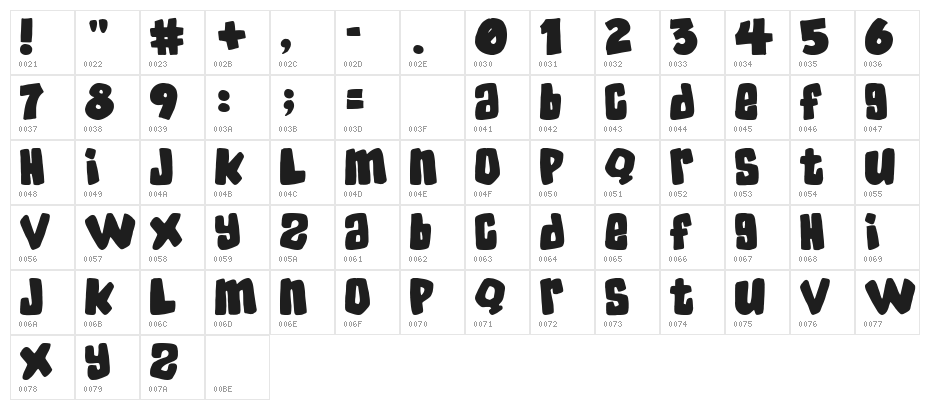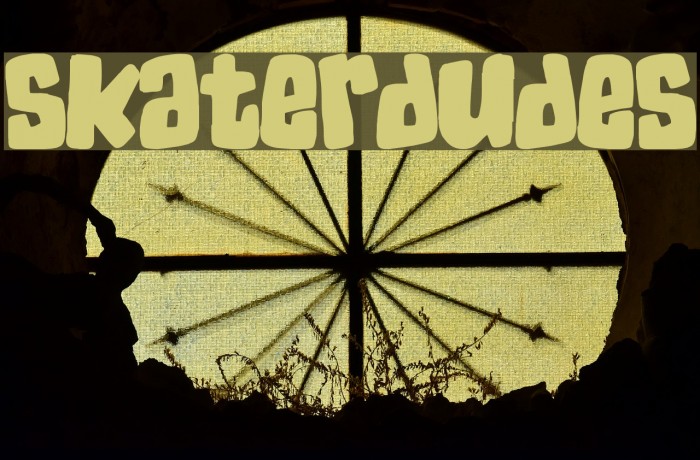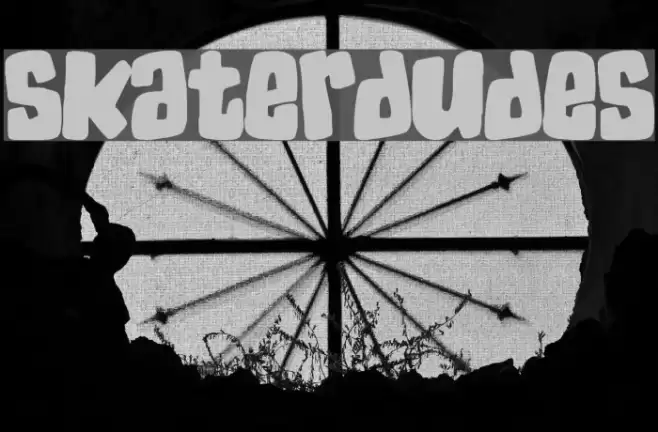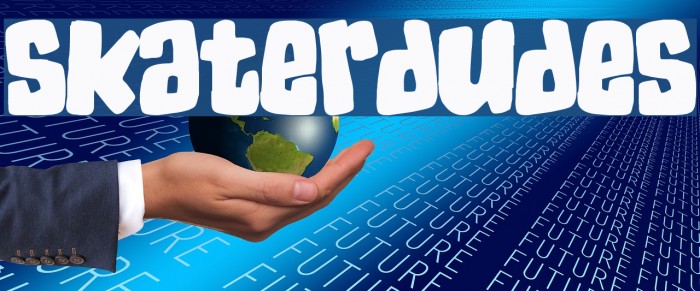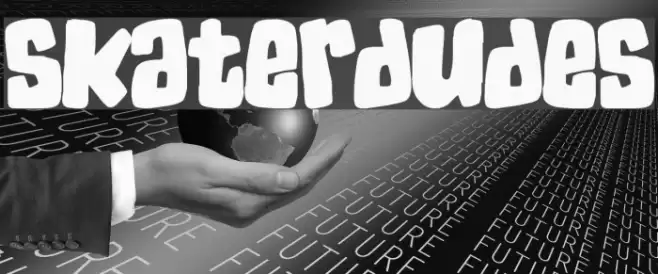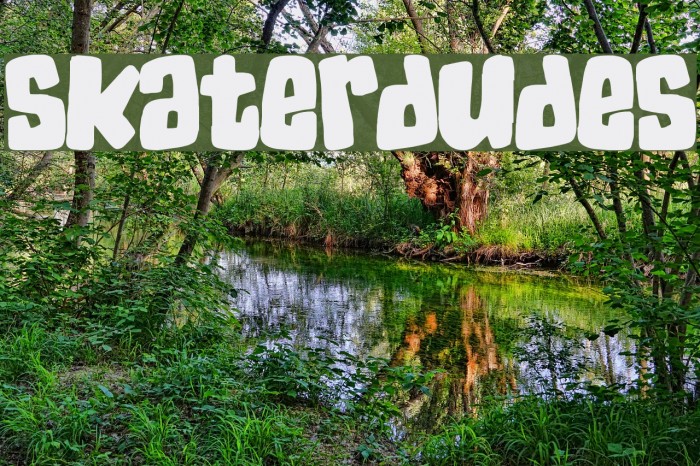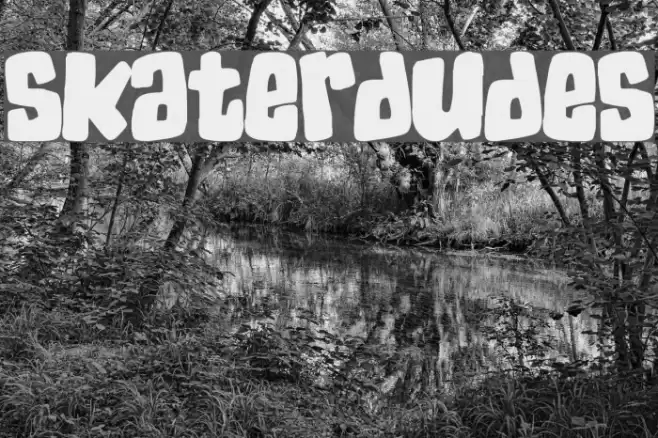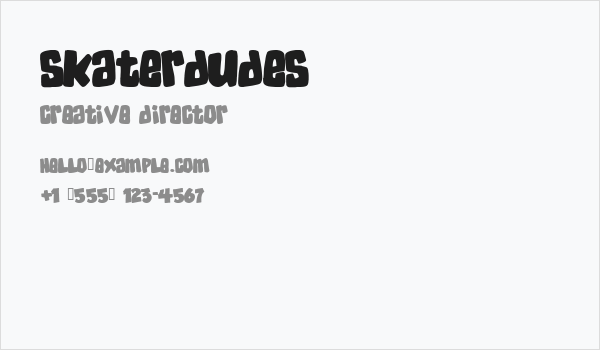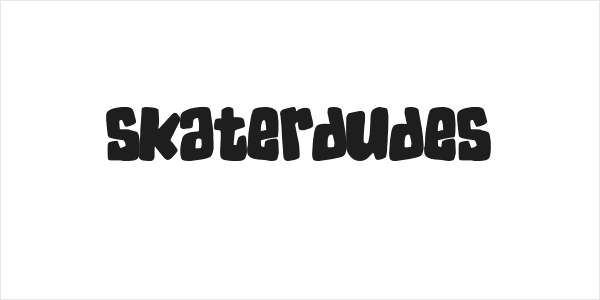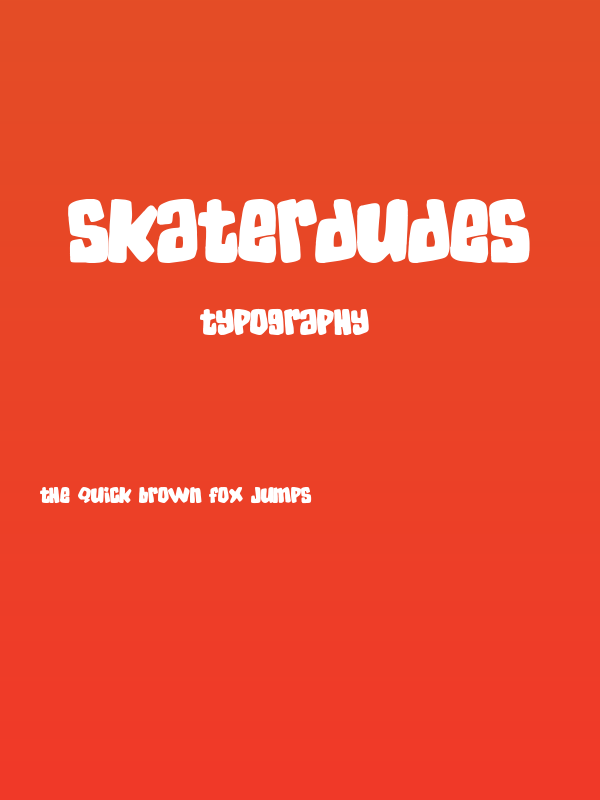
SkaterDudes Font
SkaterDudes Description
This font features a bold and playful design with a distinctly urban and youthful vibe. The characters are thick and rounded, giving them a chunky appearance that exudes energy and movement. The letters have a slightly irregular shape, adding to the casual and informal feel. This style is reminiscent of graffiti or street art, making it ideal for projects that aim to capture a sense of rebellion or creativity. The numbers and special characters maintain the same boldness and playful style, ensuring consistency across all text elements.
| Proposed Projects | Ideal for skateboarding brands, streetwear designs, event posters, and youth-oriented marketing materials. |